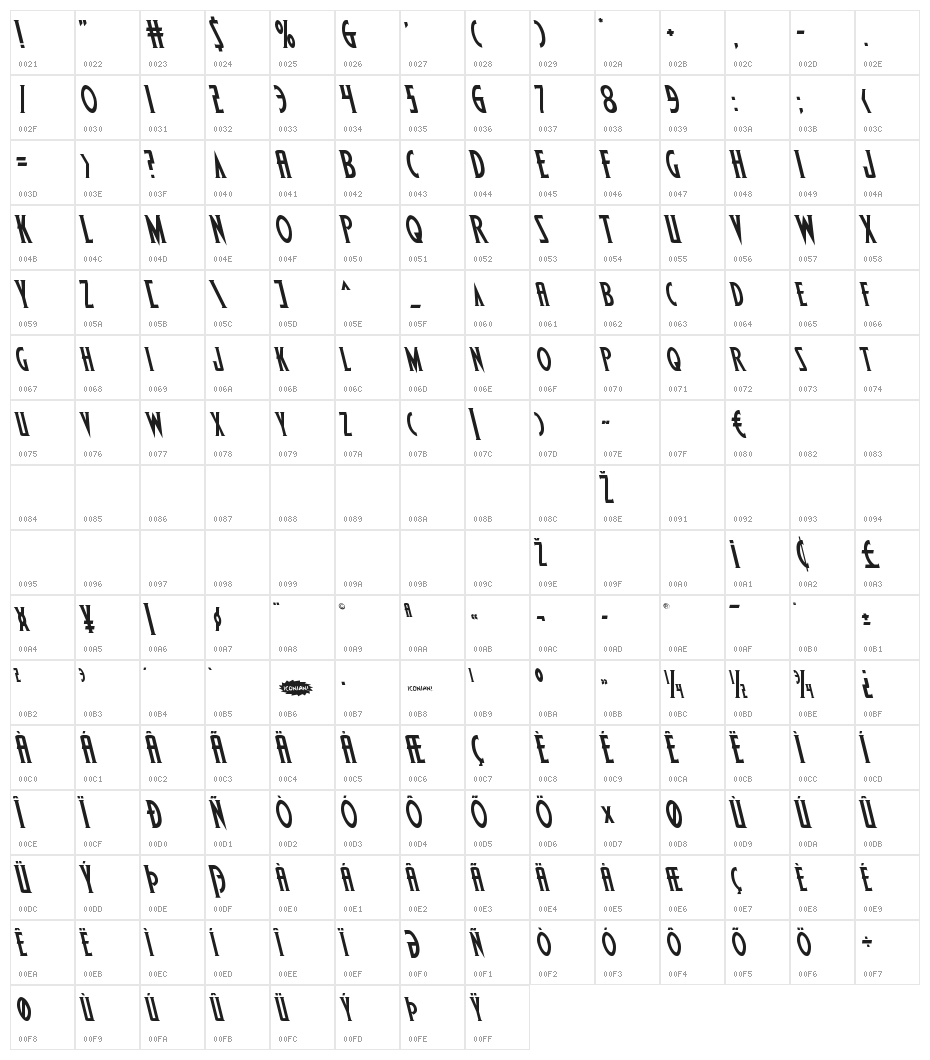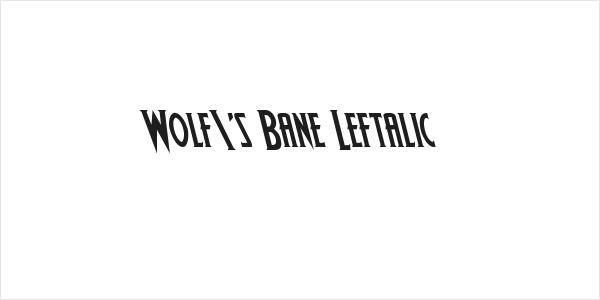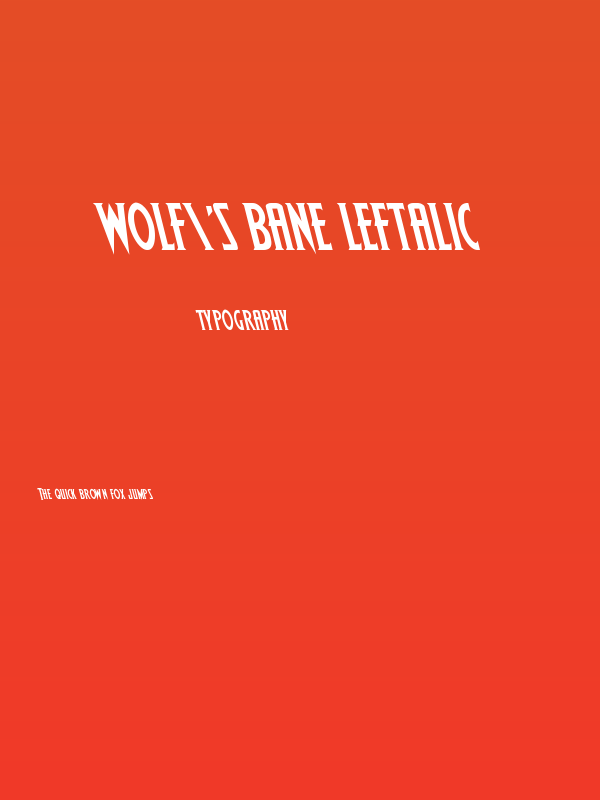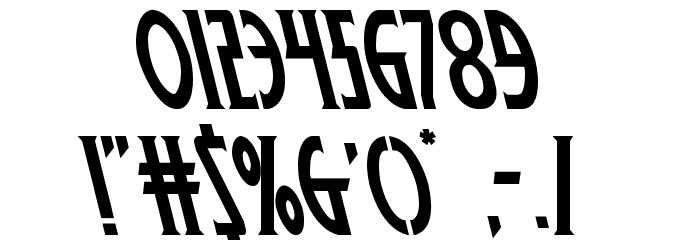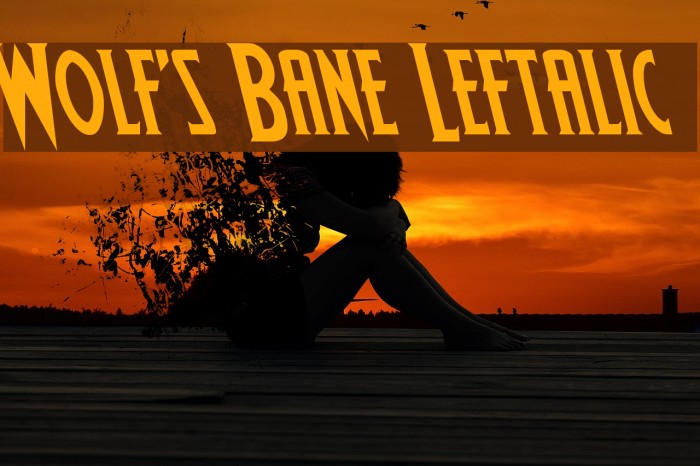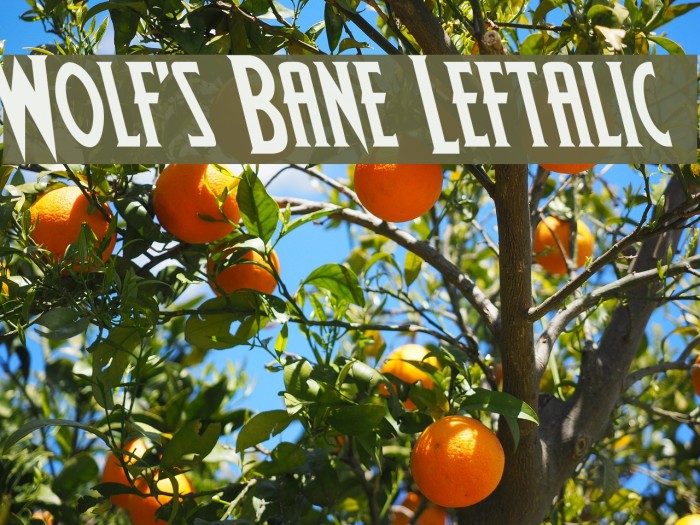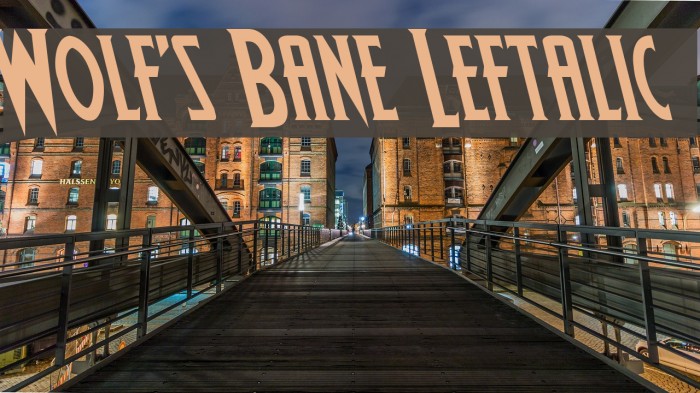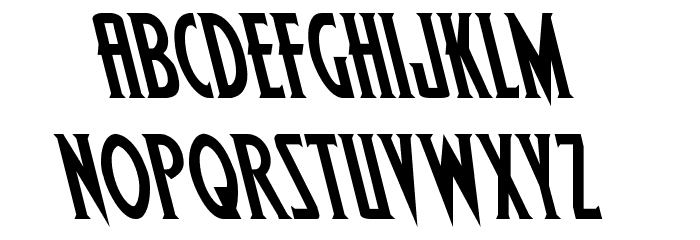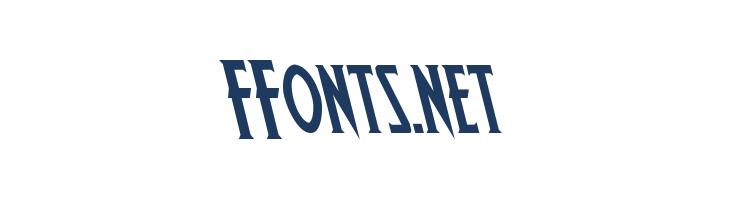
Wolf's Bane Leftalic Font
This font features a bold, dynamic style with a distinct left-leaning slant, giving it a sense of motion and energy. The characters are sharply angular, with exaggerated serifs that add a touch of drama and flair. The uppercase letters are particularly striking, with their elongated forms and pointed edges, while the lowercase letters maintain a consistent style that complements the overall design. The numerals and special characters follow the same aesthetic, ensuring a cohesive look across all text. This font is ideal for projects that require a bold statement and a modern, edgy feel.
| Proposed Projects | Ideal for posters, logos, and branding materials that need a bold and modern touch. |